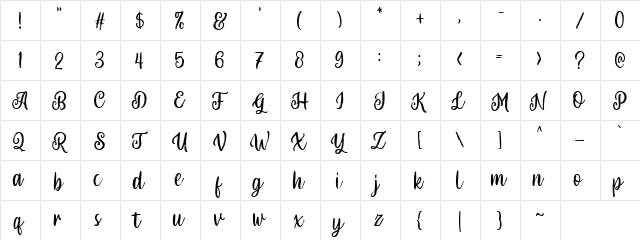
LS Olive 01 Script DEMO 01 Script
01 Script · Letterhend Studio Sarid Ezra ·
Foundry Letterhend Studio
DesignerSarid Ezra
Design Context for LS Olive 01 Script DEMO Typeface
LS Olive 01 Script DEMO flows with the natural rhythm of handwritten lettering, making it ideal for designs that call for warmth and personal expression.
Font Pairing: Combine LS Olive 01 Script DEMO with a simple geometric sans for maximum contrast — the tension between flowing curves and clean structure is a classic typographic pairing.
Pro Tip: Use LS Olive 01 Script DEMO for short runs of text — names, titles, or taglines. Extended body copy in script faces tires the eye quickly.